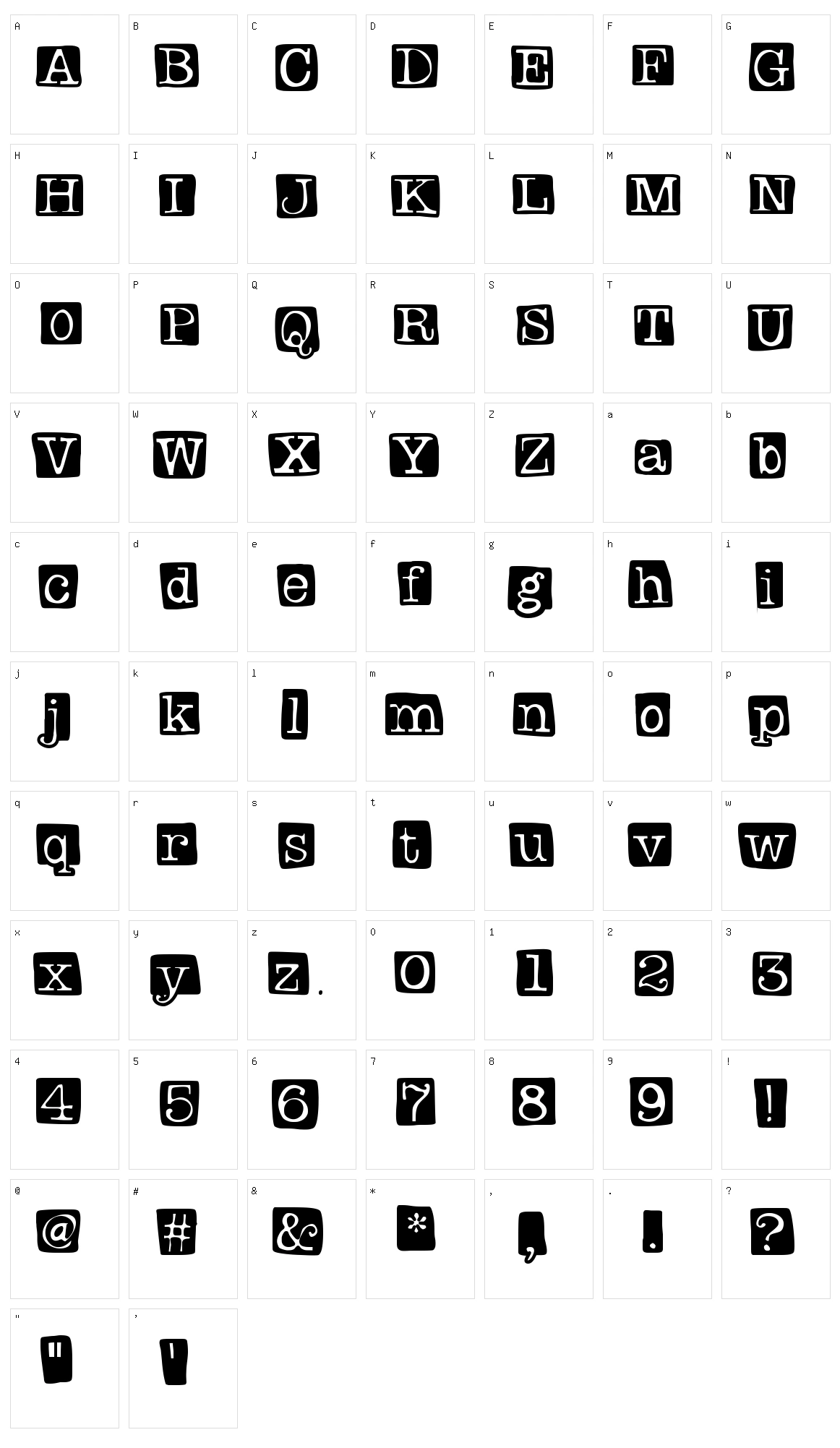
The free font Badly Stamped is carefully designed by APG Studios, showcasing a thoughtful balance of creativity and usability and falls under the Typewriter font style. When you download the ZIP file, it contains only 21.88 KB of font files, making it lightweight and quick to download. Please review the license details below to understand permitted usage and distribution rights. If license information is not available, we recommend using this font for personal projects only or contacting the author directly for commercial usage permissions.